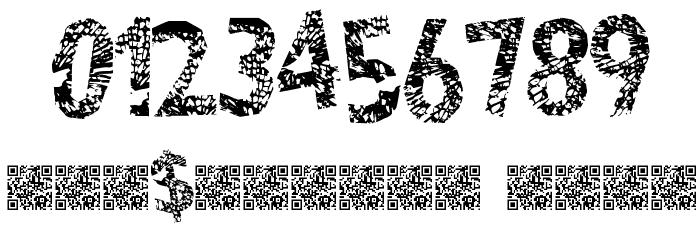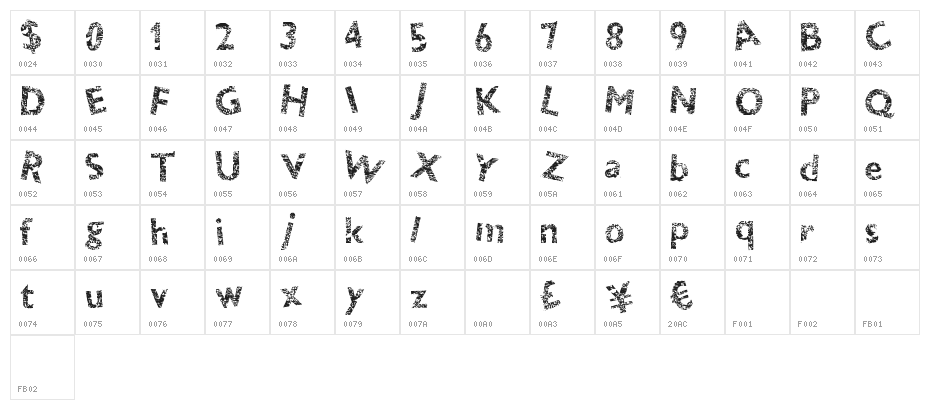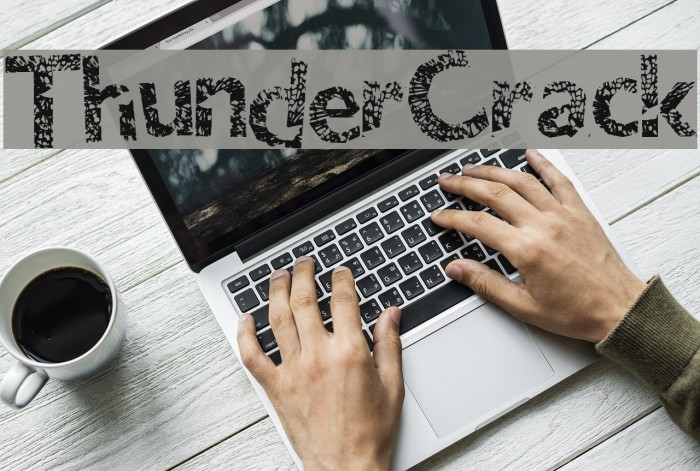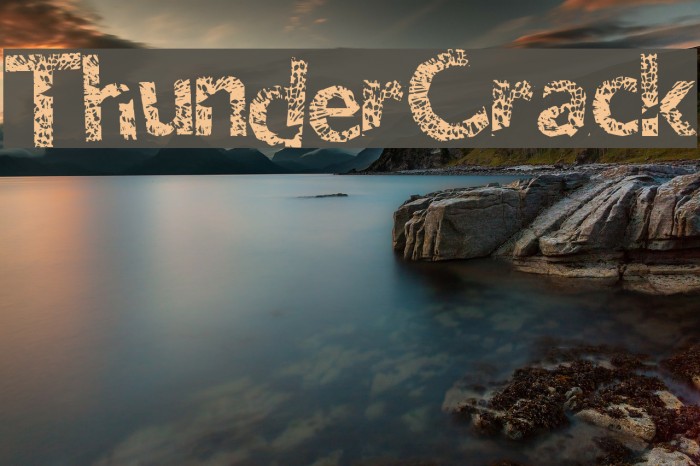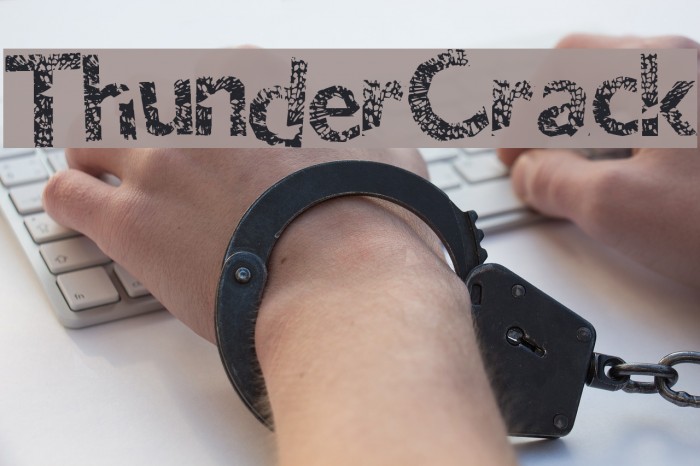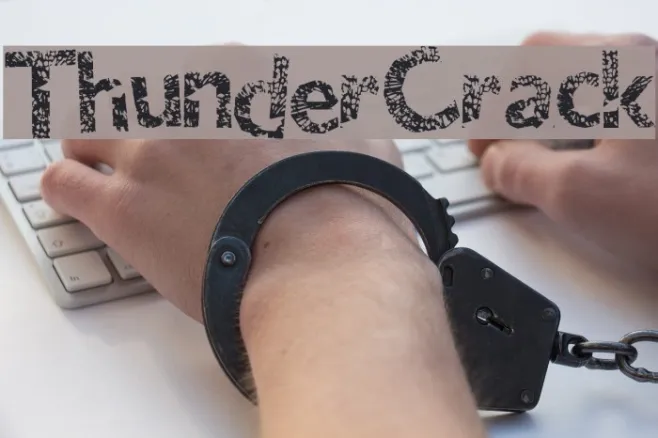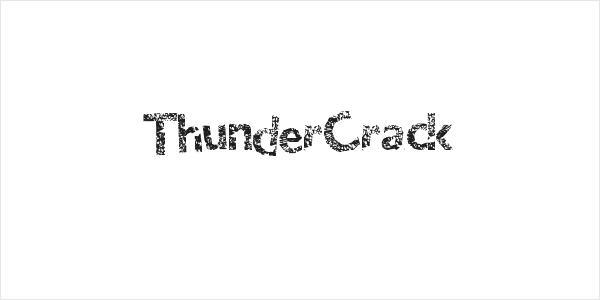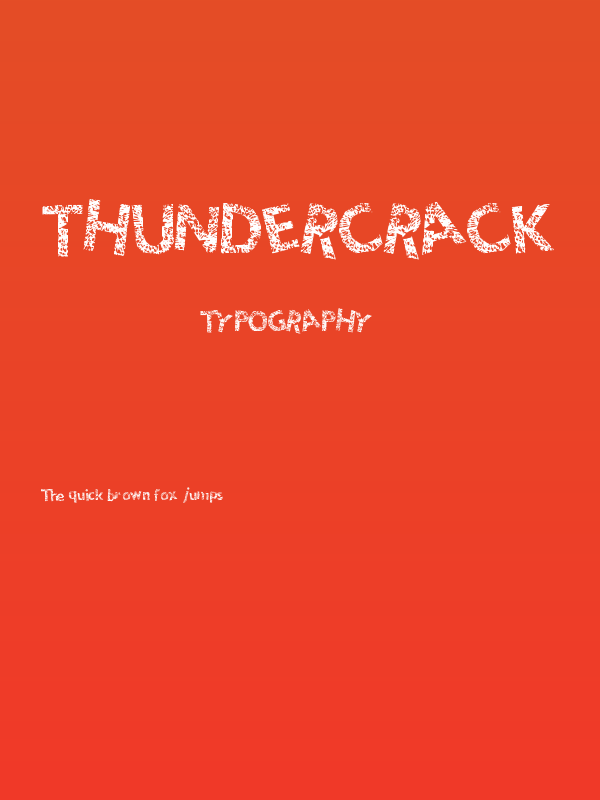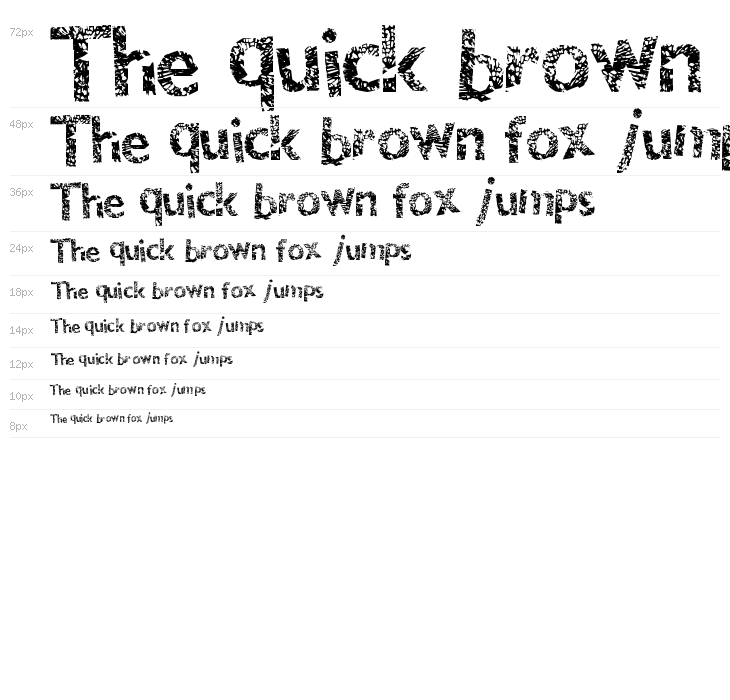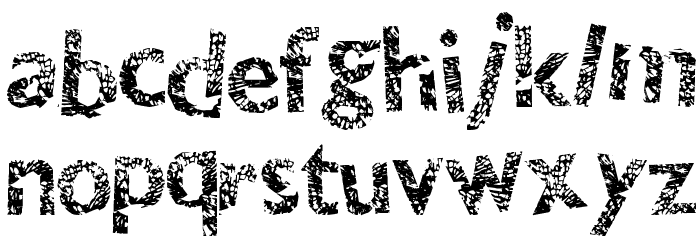
ThunderCrack Font
ThunderCrack Description
This font features a bold and dynamic design with a cracked, textured appearance that gives it a rugged and edgy feel. The uppercase and lowercase letters, as well as the numbers, are all crafted with a consistent shattered pattern that adds a sense of movement and energy. The characters are slightly irregular, enhancing the font's unique and eye-catching style. This font is perfect for projects that require a strong visual impact, such as posters, album covers, or branding for extreme sports or action-oriented themes.
| Proposed Projects | Ideal for posters, album covers, branding for extreme sports, or action-themed designs. |